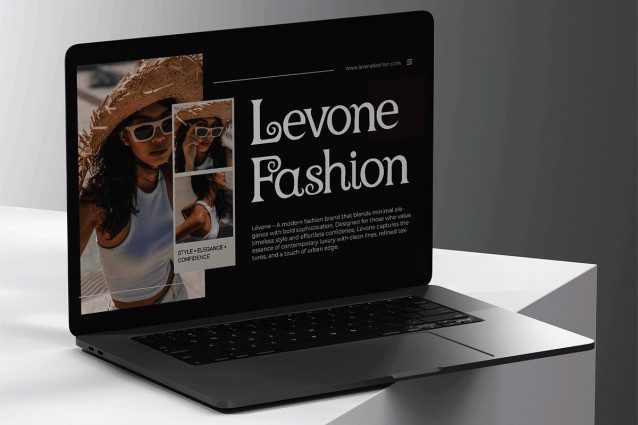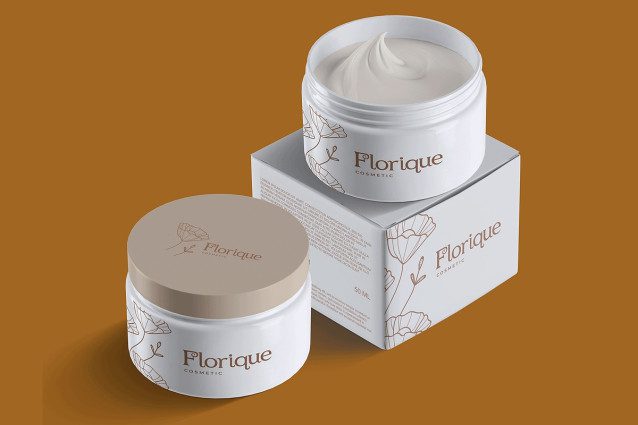
Rosavelle Font
Rosavelle Font a modern serif font that beautifully combines classic charm with a refined contemporary style. Its elegant letterforms and graceful curves make it a perfect choice for luxury branding, editorial design, and sophisticated visual identities.
With balanced proportions and subtle details, Rosavelle exudes professionalism while maintaining a soft, feminine touch. Ideal for logos, magazines, invitations, and packaging design, this font adds a sense of elegance and high-end appeal to every project.